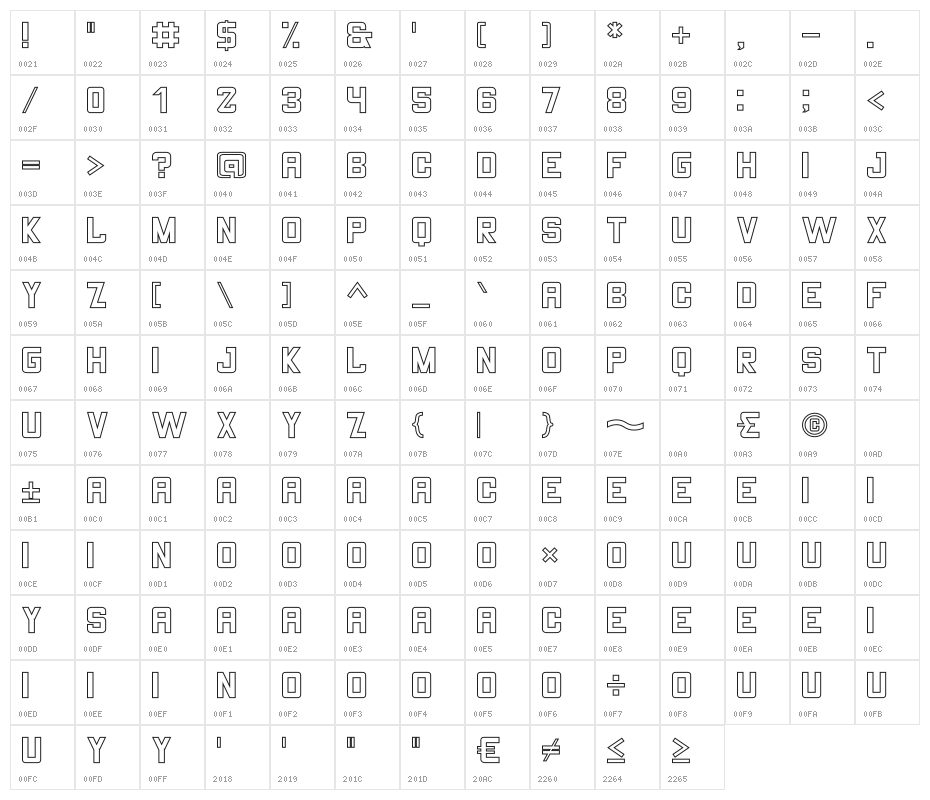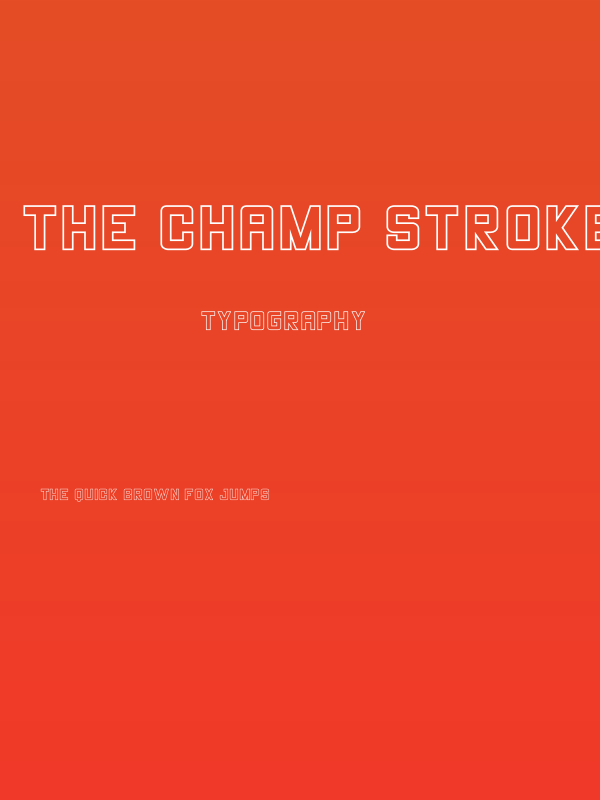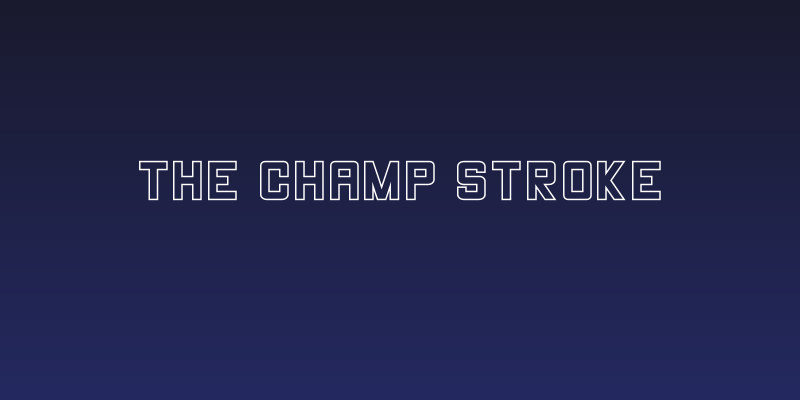
THE CHAMP Stroke Font
THE CHAMP Stroke Description
This font features a bold, geometric design with a distinct outline style that gives it a modern and impactful appearance. The characters are constructed with clean, straight lines and sharp angles, creating a sense of precision and strength. The uppercase letters are uniform in height, while the numerals and special characters maintain the same stylistic approach, ensuring consistency across all glyphs. The font's open structure and clear definition make it highly legible, even at smaller sizes. Its unique outline effect adds a layer of depth and dimension, making it suitable for eye-catching designs.
| Proposed Projects | Ideal for sports branding, posters, headlines, and any design requiring a strong, modern aesthetic. |